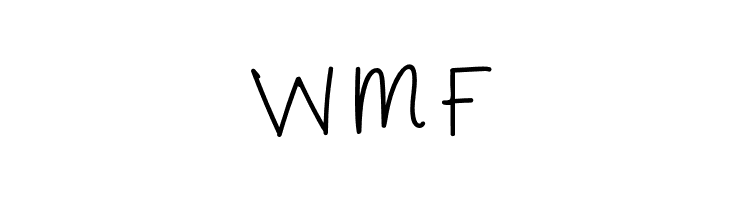
A whimsical script font with playful curls and elegant swirls.
A playful, casual handwritten font with smooth, flowing lines.
A playful, casual handwritten font with smooth, flowing curves.